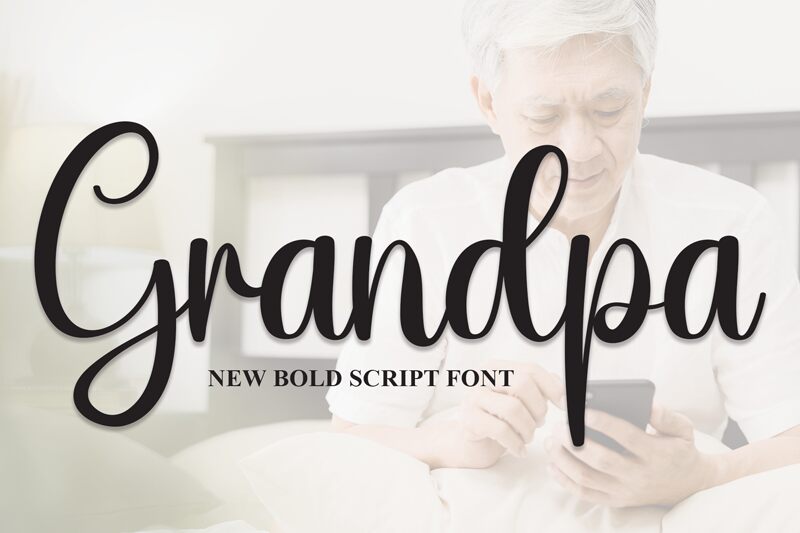
Grandpa
Grandpa, a creation by Scratchones, is a handwritten font that exudes warmth and nostalgia. With its fluid and expressive letterforms, this font harnesses the charm of vintage handwriting, bringing a personal touch to every design. Its relaxed yet elegant style lends itself effortlessly to projects that require a sense of intimacy and authenticity.
The aesthetic appeal of Grandpa lies in its ability to merge the imperfect beauty of human touch with the consistency needed for clear communication. The varied stroke weights and subtle curvatures give it an inviting and approachable demeanor. This makes it particularly suitable for invitations, greeting cards, branding materials, and any creative work where a handcrafted feel is desired.
Embrace the distinctive personality of Grandpa in your next project to infuse your work with a sense of handcrafted artistry that resonates with audiences looking for that genuine human connection.